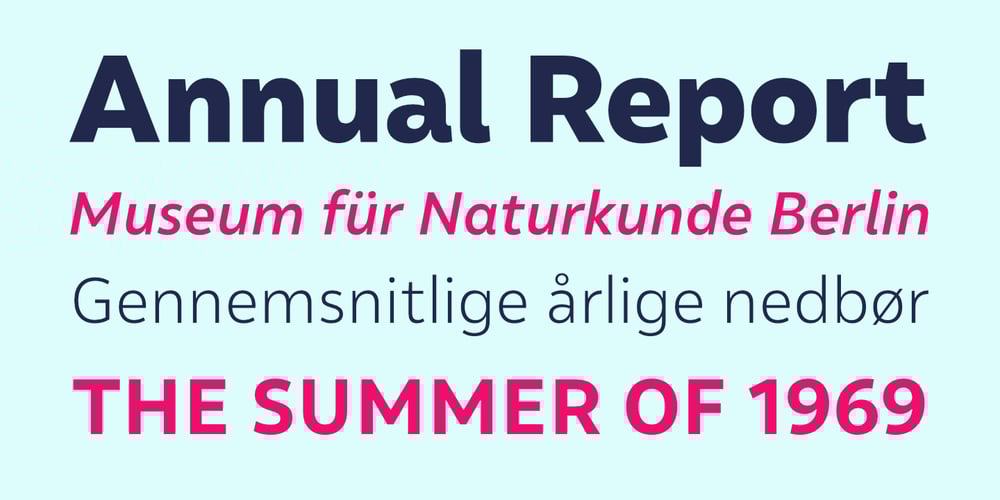
Malva Font Family was designed by Henrique Beier and published by Harbor Type. Malva contains 20 styles and family package options. ๐ Selected for Tipos Latinos 8.๐ Selected for the 12th Biennial of Brazilian Graphic Design.Malva was designed to perform as a branding element, providing a clean look for visual identities and publications. It brings a touch of friendliness to the communication without compromising the professional look every brand strives for. Legibility was one of the top concerns during the development of Malva, so we took special care to differentiate the naturally ambiguous characters I, i, l and 1.